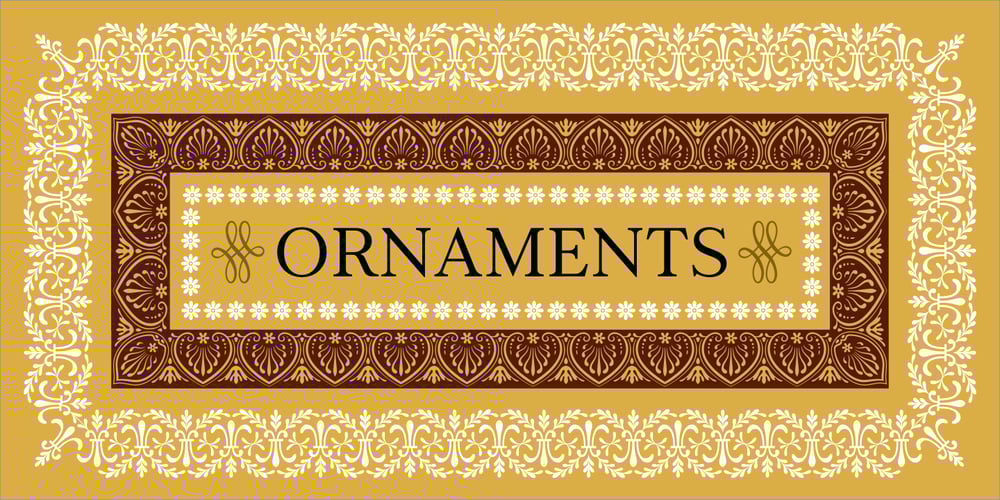
Frontis
Frontis font
Frontis Font Family was designed by Josep Patau Bellart and published by Tipo Pèpel. Frontis contains 24 styles and family package options. Inspired by the Roman lettershapes that Asensio y Mejorada drew in 1780, Frontis is a text typeface that takes this reference just as a starting point. The delicate appearance of Neoclassical fonts becomes confidence in Frontis. The characters have a solid skeleton, and the text looks classy in the condensed half of the family. A style that shines especially at display sizes. A collection of vegetal motifs and some stylistic uppercase ligatures complete the character set. These extra shapes serve to frame and bring together all the weights and styles in the type family. The lapidary ligatures and the ornaments underline the 18th-century roots of the design. There is a connection between Frontis and those classic letters that were once engraved on stone. And yet, the design is daring enough to make it a perfect choice for contemporary use.